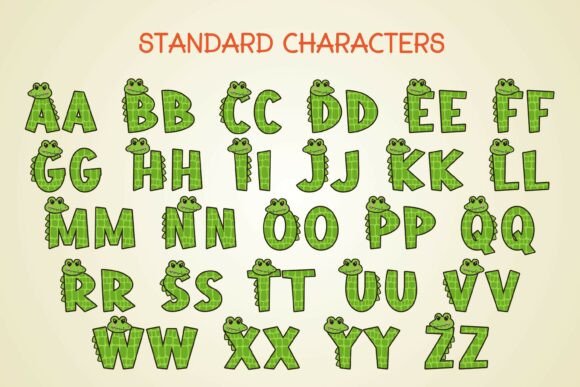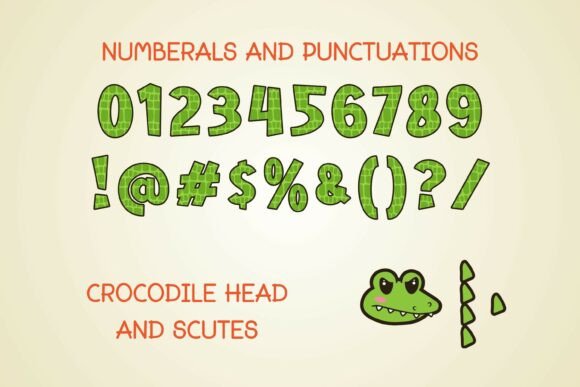
Introducing Crococo Font: Unleash the Fun and Playfulness of Crocodile-Themed Designs
Are you tired of using the same old fonts for your designs? Do you want to add a touch of fun and playfulness to your projects? Look no further than Crococo Font, a unique and colorful crocodile-themed display font that’s perfect for designers and crafters of all levels. In this article, we’ll dive into the features and benefits of Crococo Font, and explore how you can use it to bring a wild and cheerful jungle vibe to your creative projects.
What is Crococo Font?
Crococo Font is a one-of-a-kind, color font featuring adorable crocodile heads and scaly textures inside every letter. Designed in a cute cartoon flat style with bright green tones, bold outlines, and charming reptile details, this font is sure to make your projects stand out. Each character, including uppercase letters, numbers, and punctuation marks, is carefully crafted with crocodile scales and expressive crocodile heads, adding a touch of whimsy and personality to your designs.
Key Features of Crococo Font
- Unique and playful design: Crococo Font features a fun and playful design that’s perfect for kids’ designs, jungle themes, birthday invitations, stickers, sublimation, t-shirts, classroom decor, scrapbooking, and creative branding.
Who is Crococo Font for?
Crococo Font is perfect for designers, crafters, and DIY enthusiasts who want to add a touch of fun and personality to their projects. Whether you’re creating designs for kids, working on a jungle-themed project, or simply looking for a unique font to use in your branding, Crococo Font is an excellent choice.
Use Cases for Crococo Font
- Kids’ designs: Crococo Font is perfect for creating fun and playful designs for kids, including birthday invitations, stickers, and classroom decor.
- Jungle themes: The font’s jungle-inspired design makes it ideal for projects with a jungle or tropical theme, such as travel brochures, posters, and social media graphics.
- T-shirts and apparel: Crococo Font is a great choice for designing custom t-shirts, hoodies, and other apparel, adding a touch of personality and whimsy to your designs.
- Scrapbooking and crafting: The font’s playful design makes it perfect for scrapbooking, card making, and other paper crafting projects.
Tips for Using Crococo Font
- Experiment with colors: Crococo Font is a color font, so don’t be afraid to experiment with different colors and combinations to find the perfect look for your project.
- Mix and match with other fonts: Crococo Font pairs well with other fun and playful fonts, so try mixing and matching to create a unique and eye-catching design.
- Use it for headlines and titles: The font’s bold and playful design makes it perfect for headlines and titles, adding a touch of personality and whimsy to your designs.
| Author | Adalin Digital |
In conclusion, Crococo Font is a unique and playful crocodile-themed display font that’s perfect for designers and crafters of all levels. With its fun and playful design, multi-format compatibility, and color font technology, Crococo Font is an excellent choice for a wide range of projects, from kids’ designs and jungle themes to t-shirts and scrapbooking. So why settle for boring and generic fonts when you can add a touch of personality and whimsy to your designs with Crococo Font?
So go ahead, unleash your creativity, and let your designs snap with personality using Crococo Font!